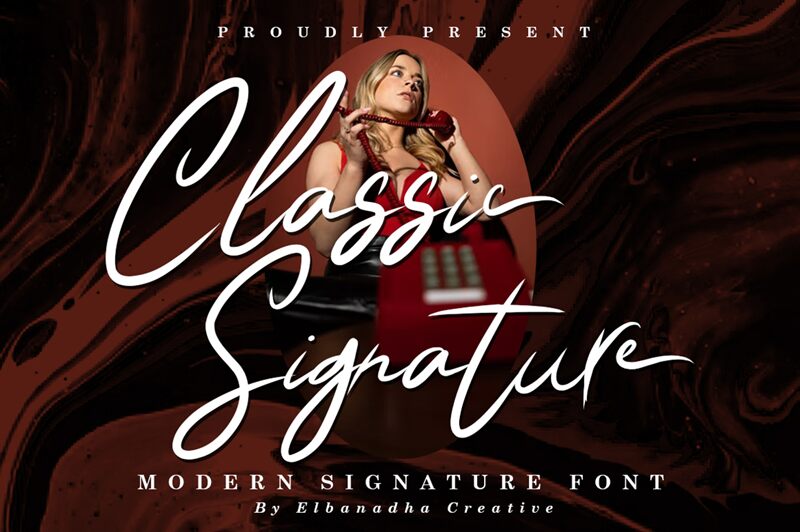
CLASSIC SIGNATURE DEMO
The Classic Signature font, designed by Elbanadha Creative, exudes elegance and sophistication with its handwritten style. Its semi-light weight adds a touch of delicacy to any project. This versatile font is suitable for a wide range of projects, from wedding invitations and personal branding to luxury fashion magazines and high-end product packaging. Whether you're aiming for a timeless and refined look or seeking to capture the essence of effortless beauty, Classic Signature is the perfect choice to elevate your designs.